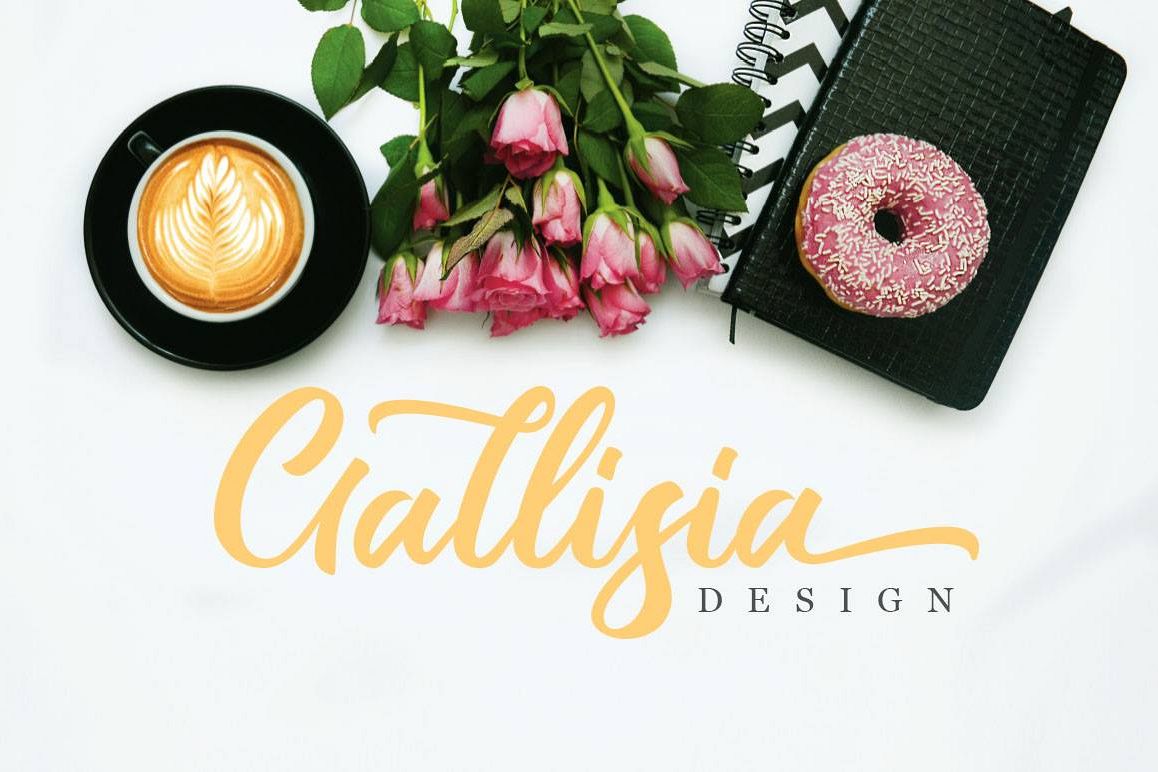
Gallisia Design Script
Gallisia Design Font Script is a unique, cool and modern handwritten font. It's hand look style makes it perfect for use in all your design projects be it logos, Labels, Packaging design, Blog headlines, Poster, Instagram Design, etc